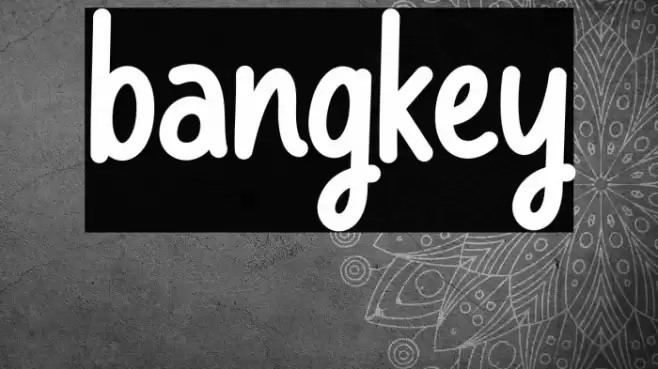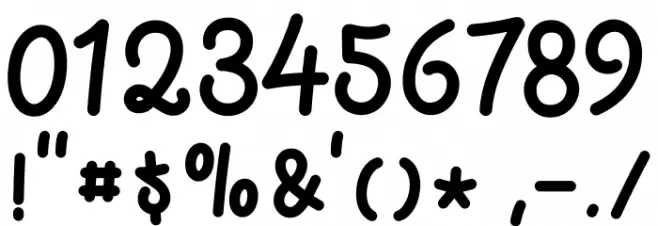
bangkey Font
bangkey Description
This font features a playful and casual script style, characterized by its smooth, flowing curves and rounded edges. The uppercase letters maintain a consistent height, with subtle variations in stroke width that add a dynamic feel. The lowercase letters are bold and slightly larger, enhancing readability while maintaining a friendly appearance. The numerals and special characters are designed with the same playful curves, ensuring a cohesive look across all text. This font's unique style makes it suitable for projects that require a touch of whimsy and approachability.
A playful, casual script font with smooth curves and rounded edges from Uncategorized fonts.
- Proposed Projects: Ideal for children's books, playful branding, greeting cards, and social media graphics.
- Overall Style: Playful
- Use Case: Headlines, Logos, Social Media